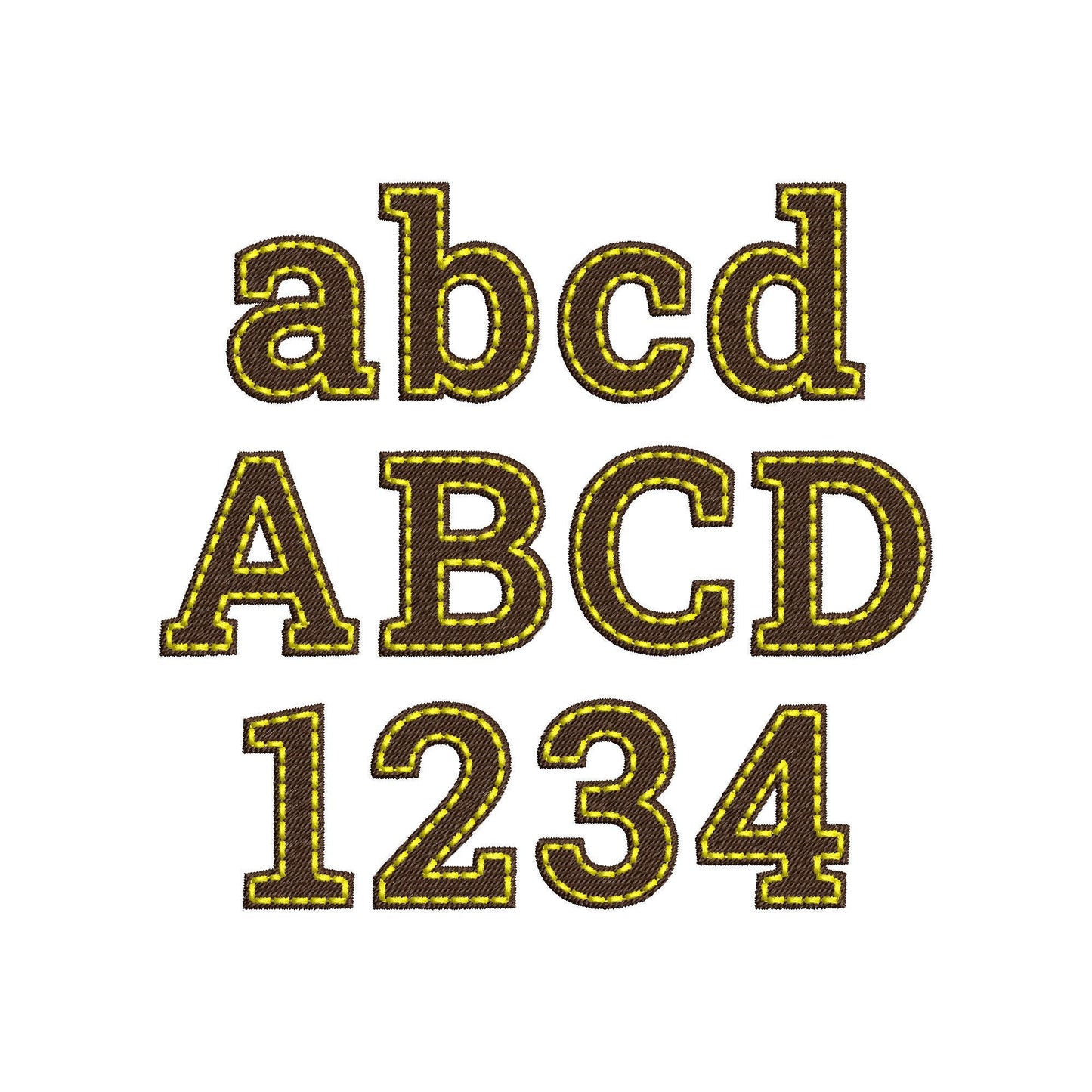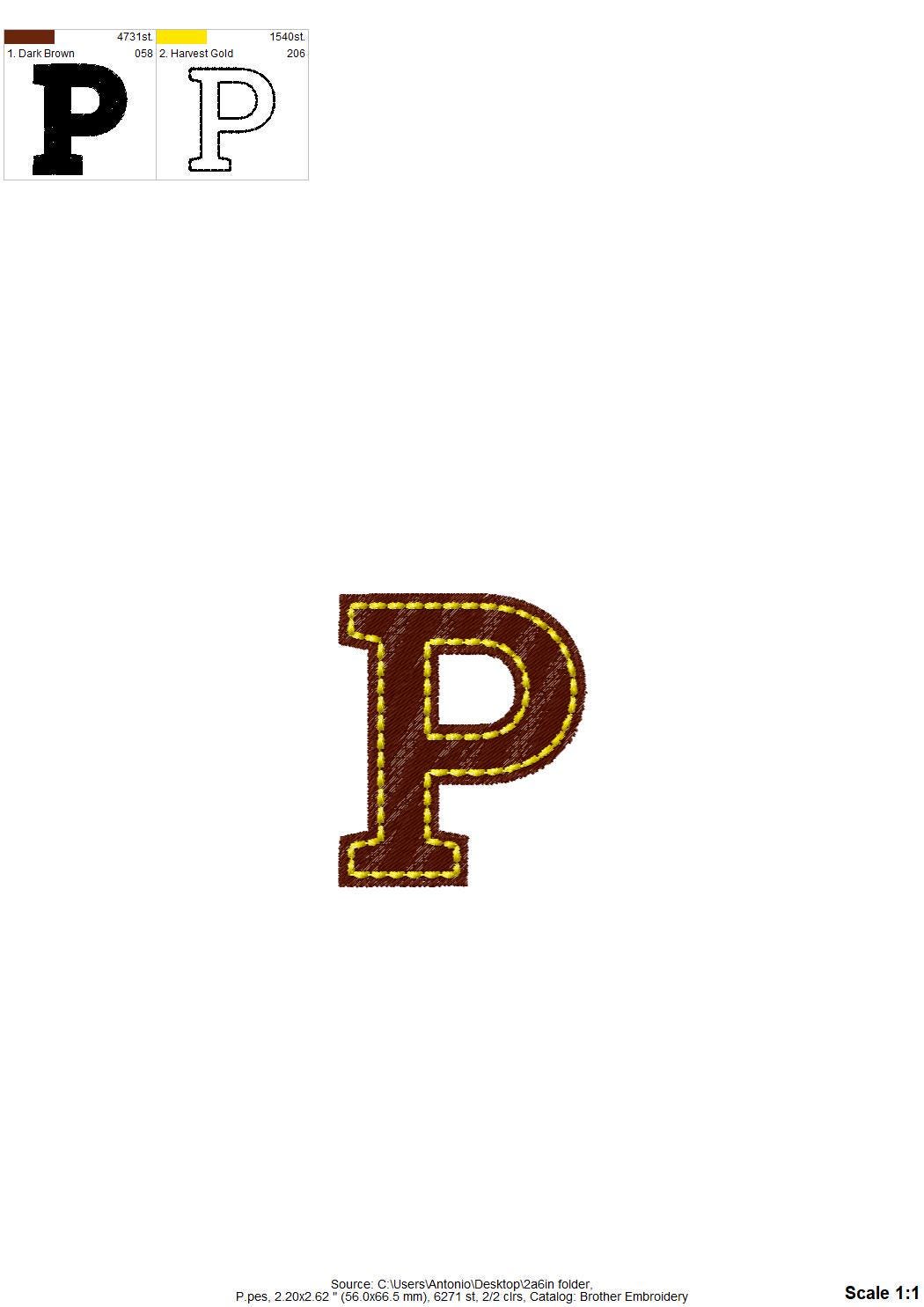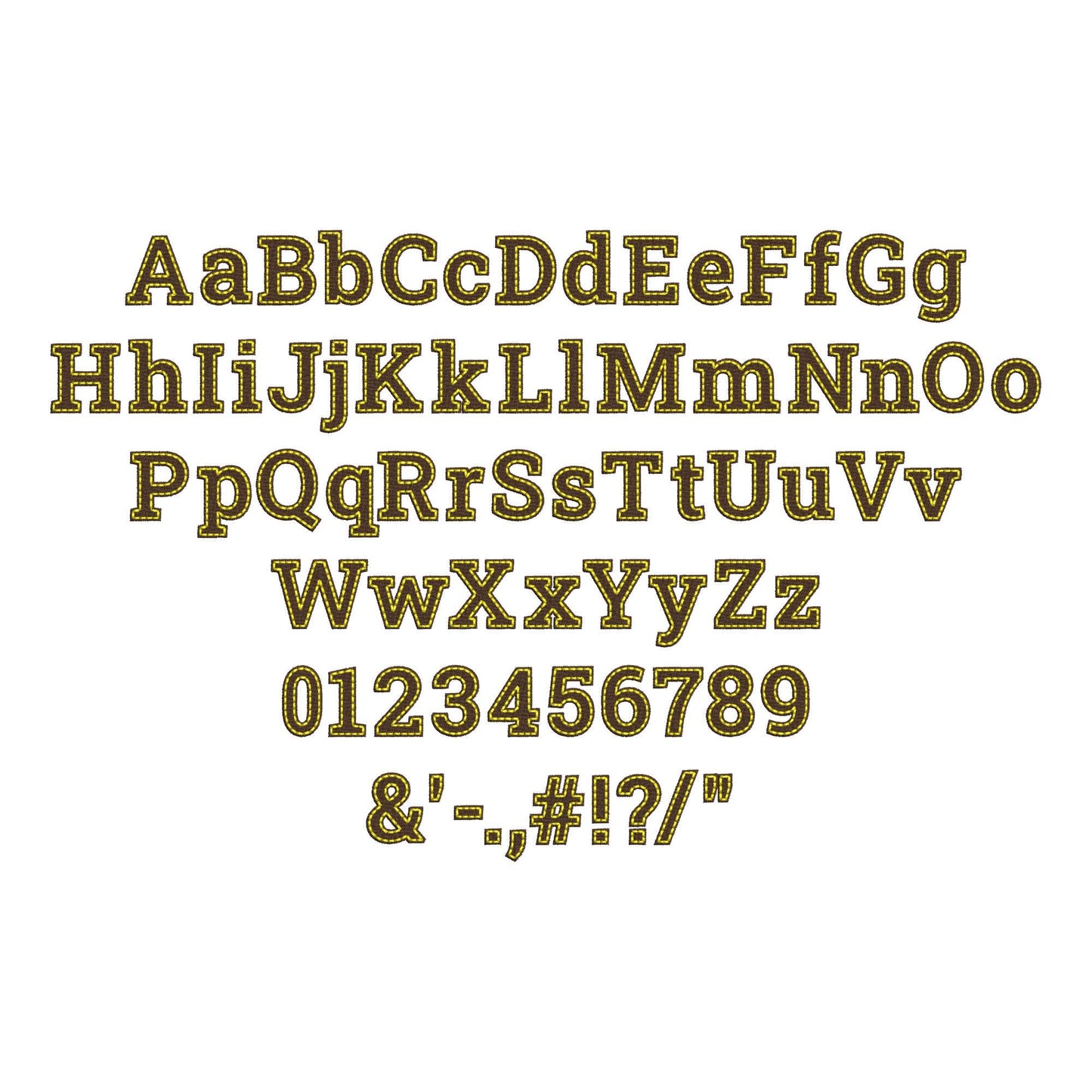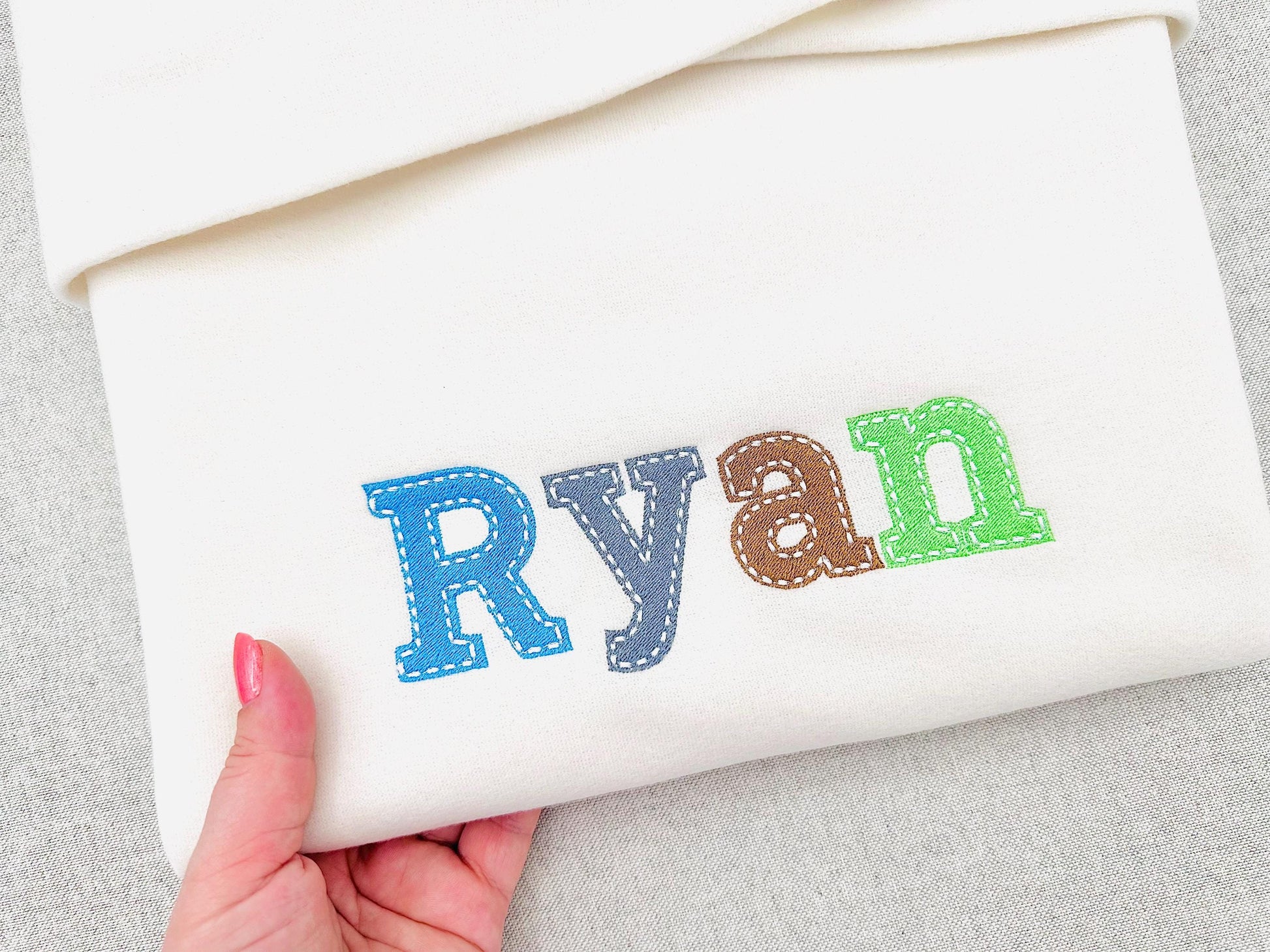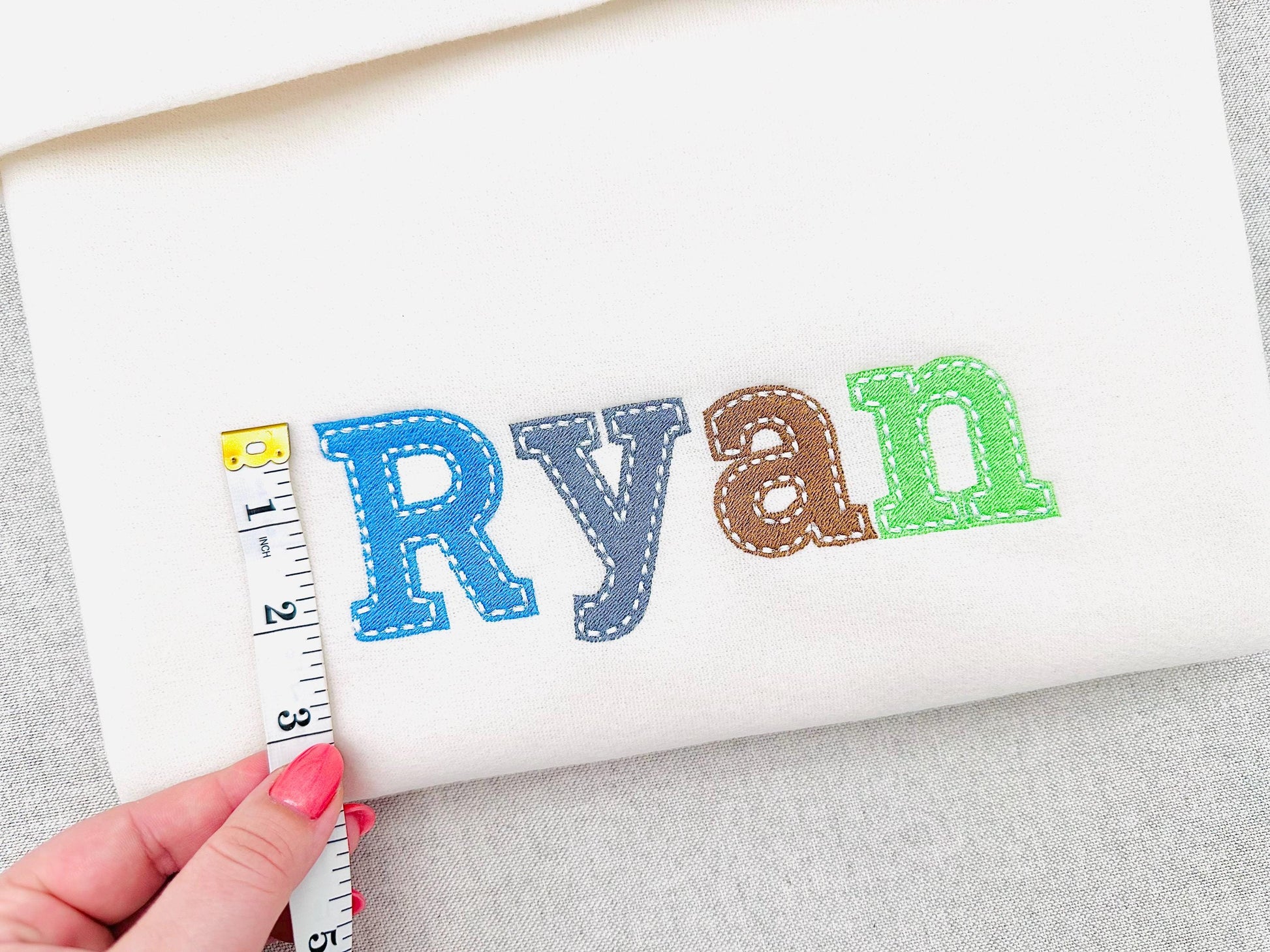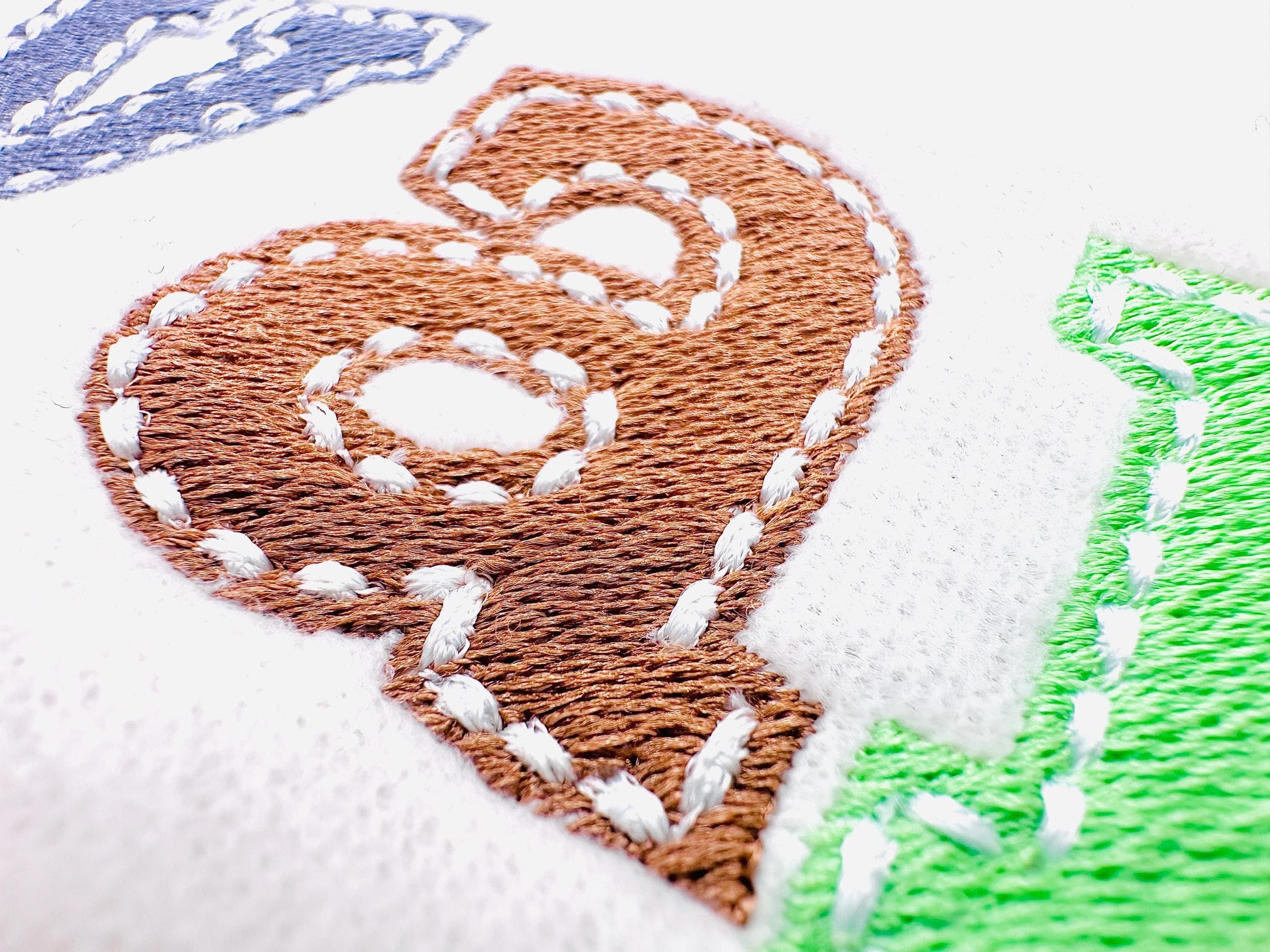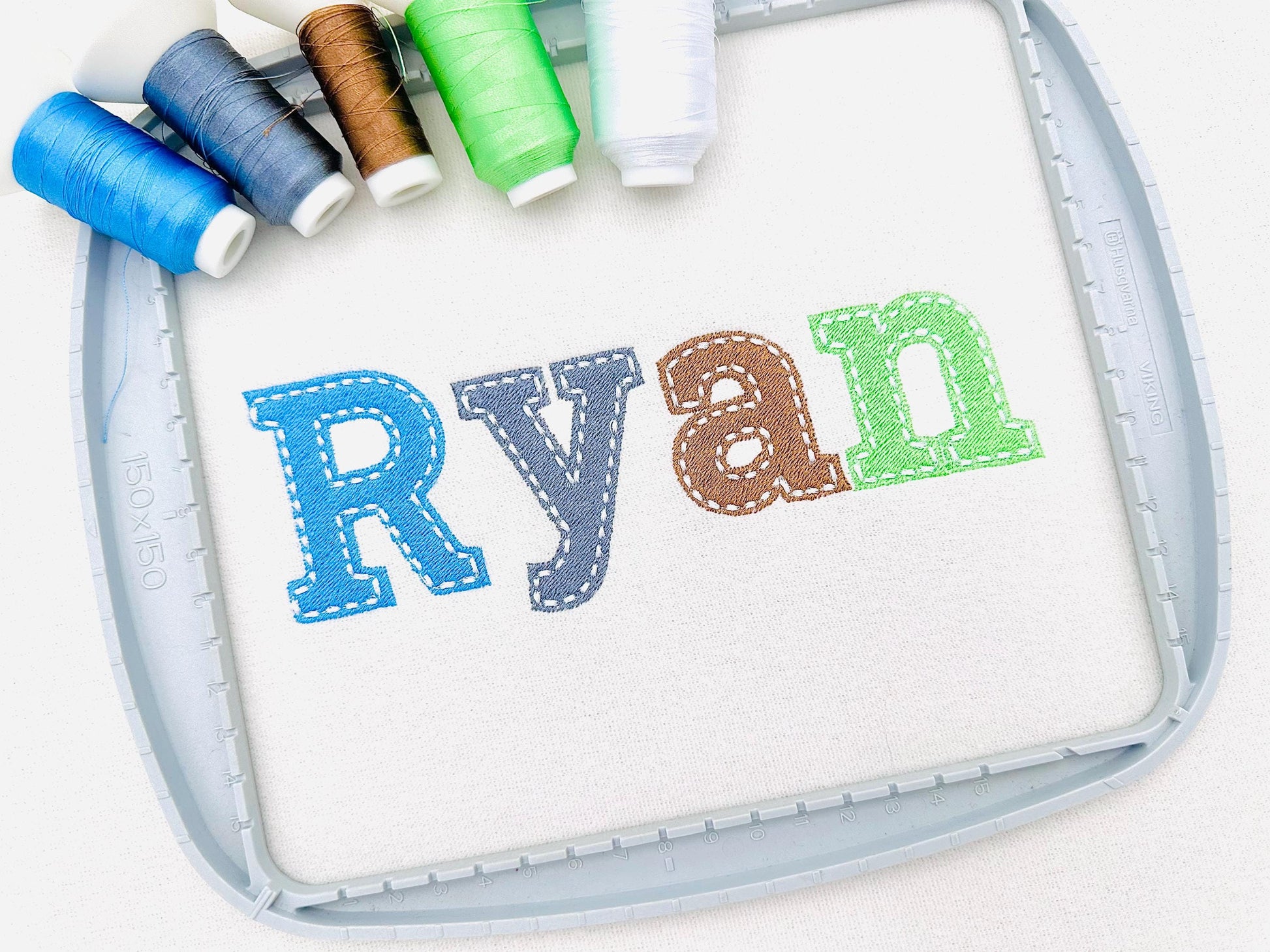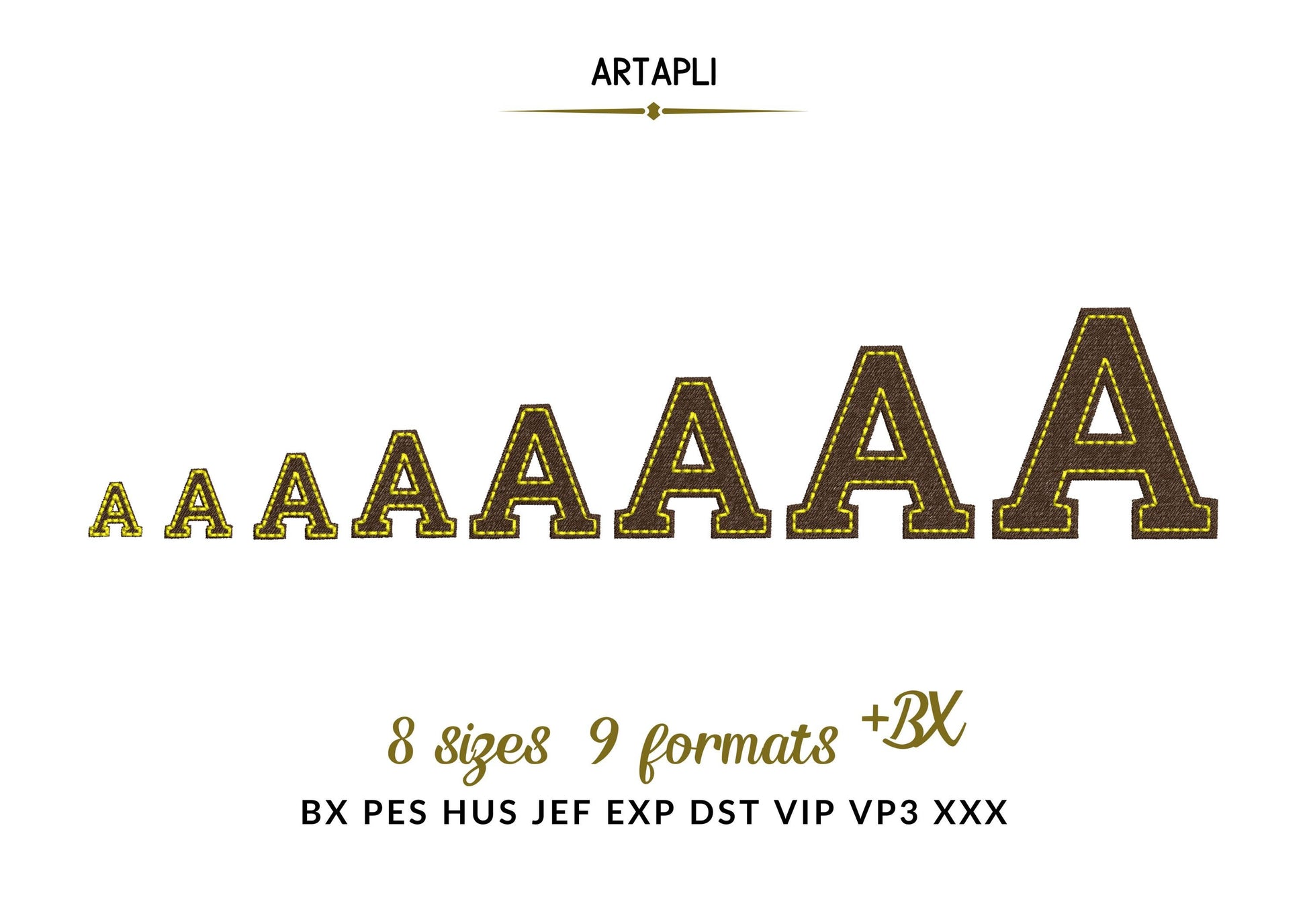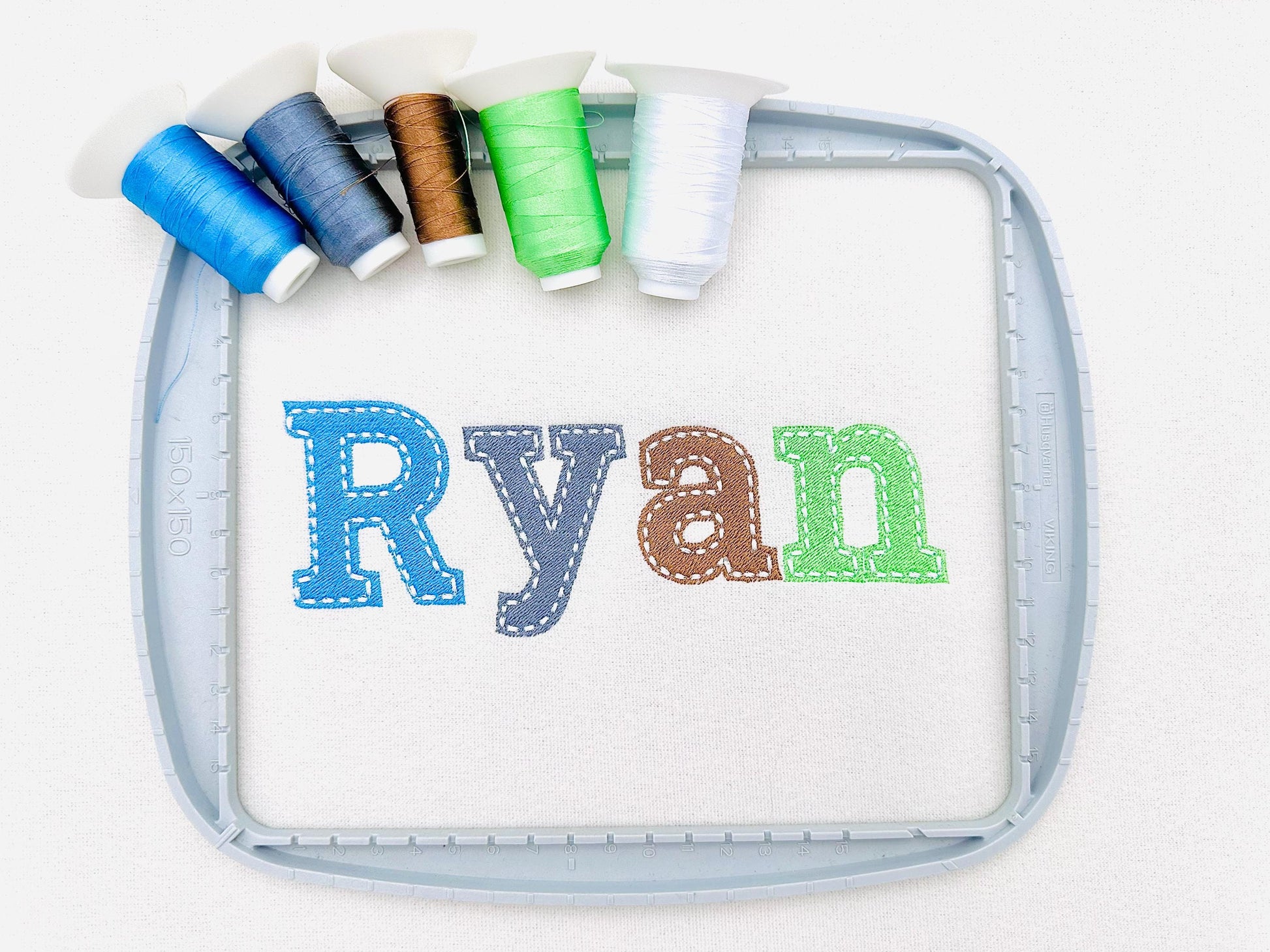
Fill stitch Font Rowan
The letters come in eight sizes: 0.9, 1.1, 1.4, 1.8, 2.2, 2.6, 3.1 and 3.8 inches. Includes uppercase and lowercase letters, numbers 0-9 and punctuation.
- Rowan fill stitch font: uppercase and lowercase letters, numbers 0-9 and punctuation
- 8 letter sizes, 0.9 to 3.8 in